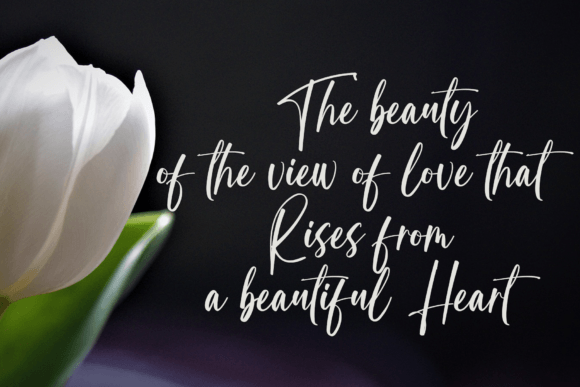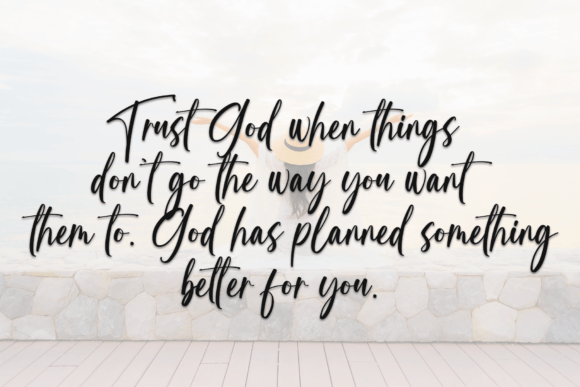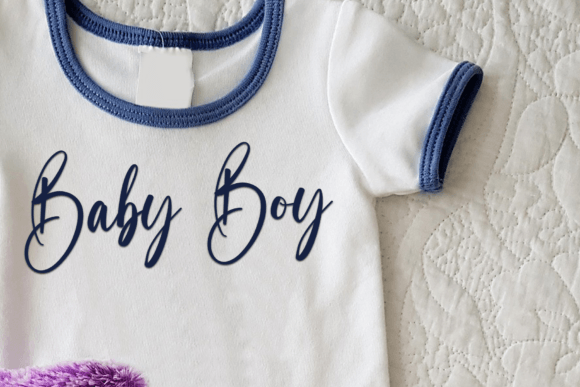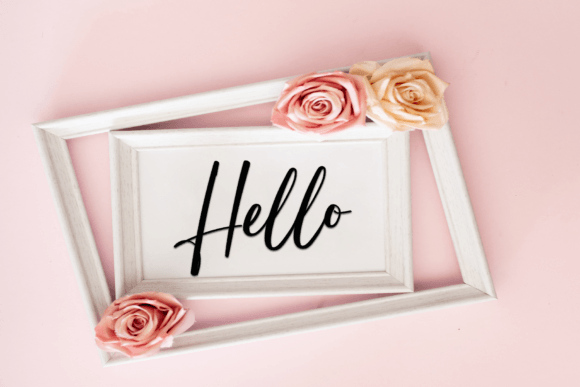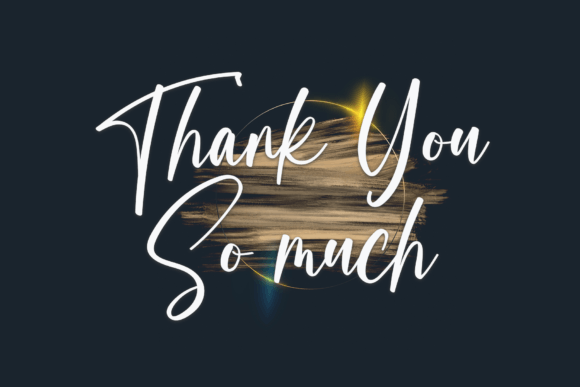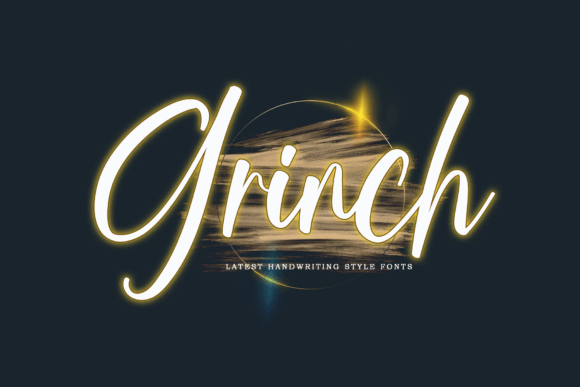
Introducing the Grinch Font: A Sweet and Luxurious Handwritten Delight
Are you on the hunt for a font that adds a touch of luxury and whimsy to your design projects? Look no further than the Grinch Font, a sweet and beautiful handwritten font that’s sure to capture your heart. This gorgeous font features characters that dance along the baseline, giving it a playful and elegant feel that’s perfect for a wide range of design applications.
What Makes the Grinch Font So Special?
The Grinch Font is a true standout in the world of typography, with its unique and charming handwritten style that’s sure to add a touch of magic to any design project. Here are just a few reasons why this font is a must-have for designers and crafters:
• Handwritten with love: The Grinch Font is a carefully crafted handwritten font that’s been designed to evoke a sense of warmth and personality. Each character is lovingly crafted to ensure that your designs feel personal and special.
• Luxury spark: With its elegant and refined style, the Grinch Font is the perfect choice for designers who want to add a touch of luxury to their work. Whether you’re creating branding materials, packaging, or marketing collateral, this font is sure to impress.
• Dancing characters: One of the standout features of the Grinch Font is its dancing characters, which add a playful and whimsical touch to any design. This unique feature is sure to make your designs stand out from the crowd.
The Grinch Font is a versatile and flexible font that’s perfect for a wide range of design projects. Here are just a few ideas to get you started:
• Branding and logos: The Grinch Font is a great choice for branding and logos, adding a touch of elegance and sophistication to your company’s identity.
• Wedding and event planning: This font is perfect for wedding and event planners who want to add a touch of luxury and whimsy to their stationery and marketing materials.
• Packaging and product design: The Grinch Font is a great choice for packaging and product design, adding a touch of personality and charm to your products.
• Marketing and advertising: This font is perfect for marketing and advertising materials, such as brochures, flyers, and social media graphics.
Tips for Using the Grinch Font
To get the most out of the Grinch Font, here are a few tips to keep in mind:
• Use it sparingly: While the Grinch Font is a beautiful and elegant font, it’s best used sparingly to avoid overwhelming your design. Try using it for headings or titles, and pairing it with a simpler font for body text.
• Experiment with colors: The Grinch Font looks great in a wide range of colors, from rich and bold to soft and pastel. Experiment with different colors to find the perfect combination for your design.
• Pair it with other fonts: The Grinch Font pairs well with a wide range of other fonts, from simple sans-serifs to elegant script fonts. Try experimenting with different pairings to find the perfect combination for your design.
In conclusion, the Grinch Font is a sweet and beautiful handwritten font that’s perfect for designers and crafters who want to add a touch of luxury and whimsy to their work. With its unique and charming style, dancing characters, and versatility, this font is sure to become a favorite in your design arsenal. So why wait? Download the Grinch Font today and start creating stunning designs that will leave a lasting impression!